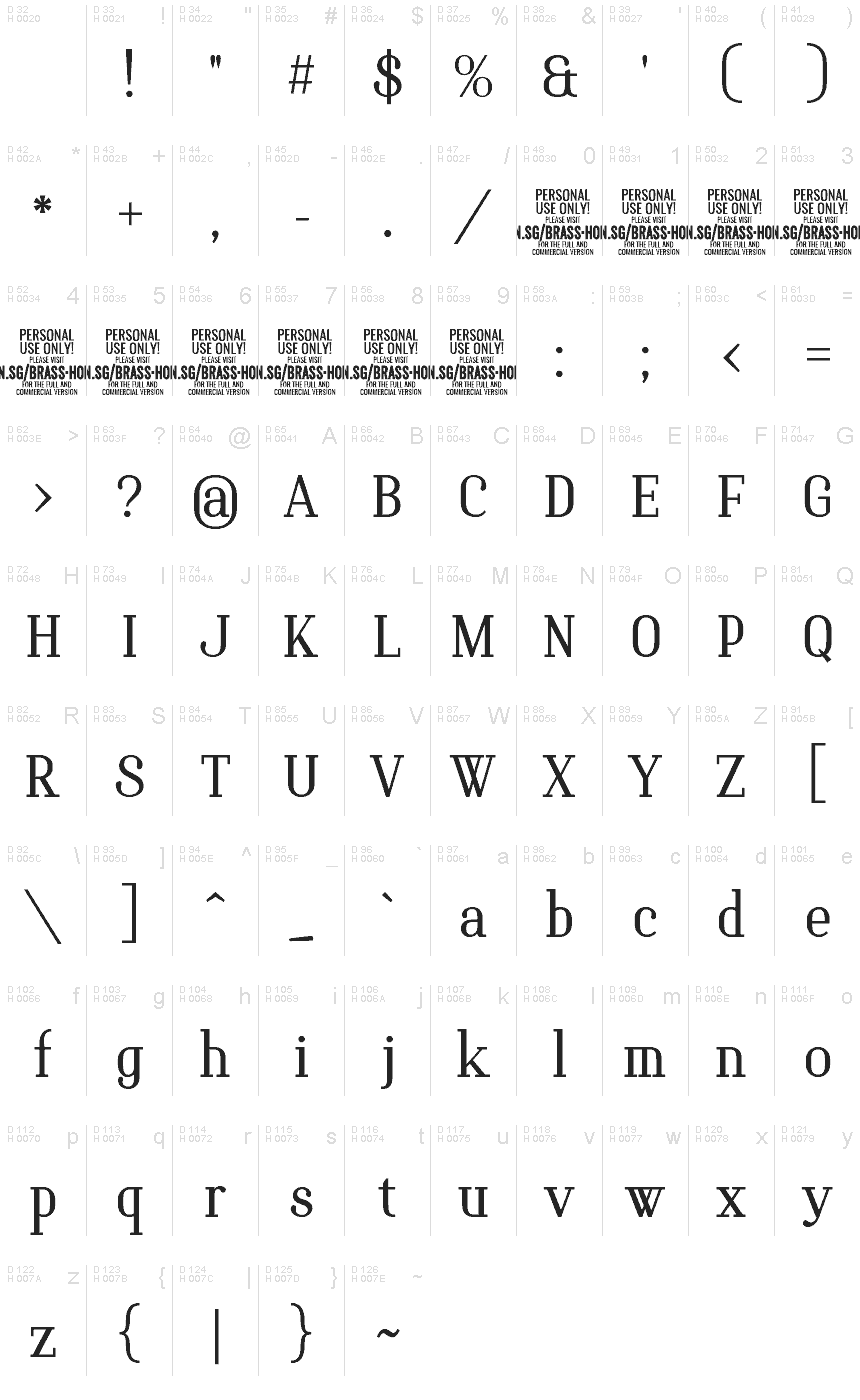
Brass Hopper Body PERSONAL Thin
Brass Hopper Body Thin font by Mans Greback is a free serif font that embodies structural design. A modern geometrical typeface, Brass Hopper is characterized by strict shapes and a touch of formality. Professional, legible, and surely classic, this one comes with the best mix of traditional influences and contemporary styles.
Use this condensed resource in magazines, newspapers, typography projects both online or printed. It also works on website titles or body text when legibility matters! Explore it further on social media posts, job search platforms entry designs, branding designs (logos inclusive), banners and more projects of interest.